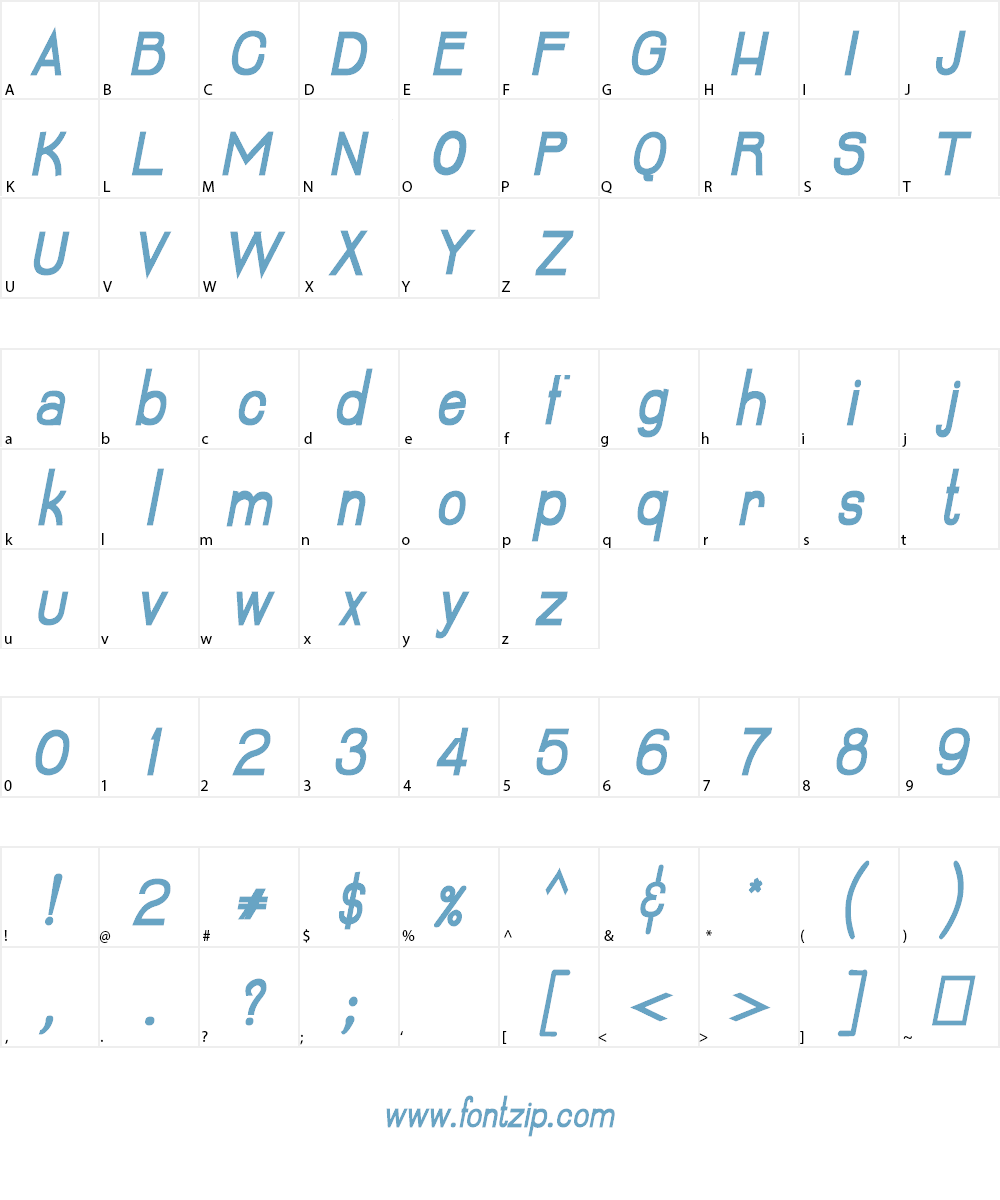
I kept thinking about the character from Beauty and the Beast when this font came into being. Figured he deserved a name sake. lumiere's fat, sassy sister